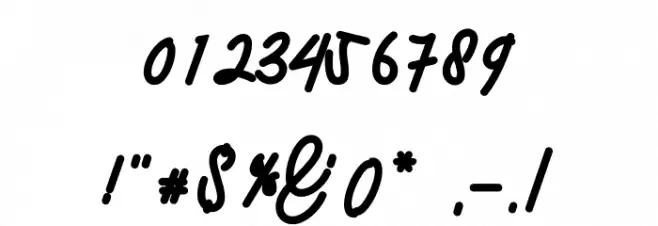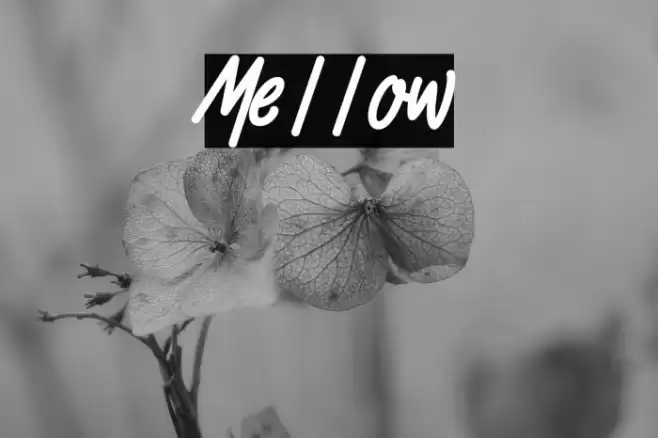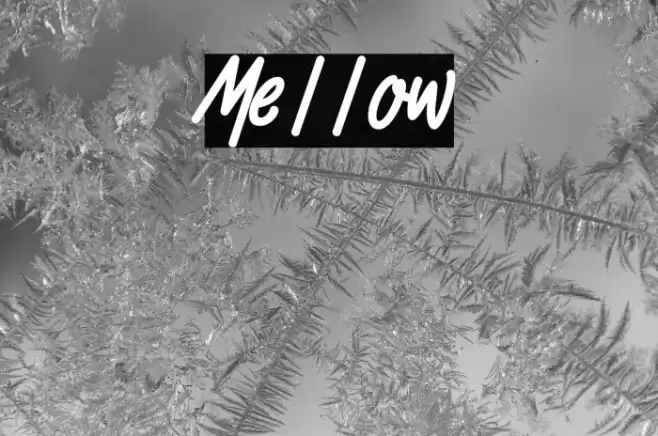
Mellow Font
Mellow Description
This font features a bold, handwritten style with a playful and energetic appearance. The letters are slightly slanted, giving it a dynamic and informal feel. The strokes are thick and consistent, providing a strong visual impact. The uppercase and lowercase letters are well-balanced, with a smooth flow that enhances readability. The numbers and special characters maintain the same lively style, making it versatile for various uses. Its unique character shapes and fluid lines make it stand out, suitable for projects that require a personal touch.
| Proposed Projects | Ideal for greeting cards, invitations, posters, and branding projects that require a personal and lively touch. |